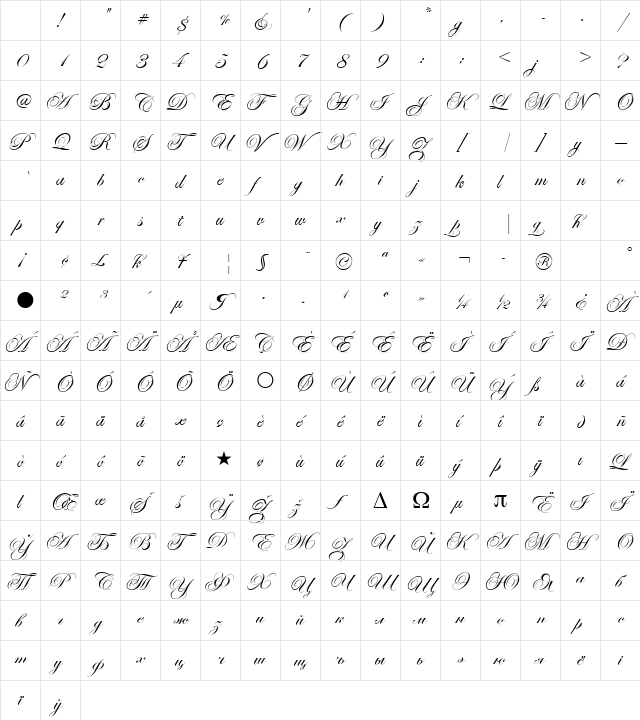
Complete Edwardian Scr ITC TT Regular glyph index. Displaying only characters natively supported by Edwardian Scr ITC TT Regular font.
Edwardian Scr ITC TT is a composed and adaptable typeface that performs quietly and consistently across a wide range of design contexts.
Who designed the Edwardian Scr ITC TT Regular font?
This font was published by Alexandra Gophmann. Check the technical specs section for copyright and designer details.